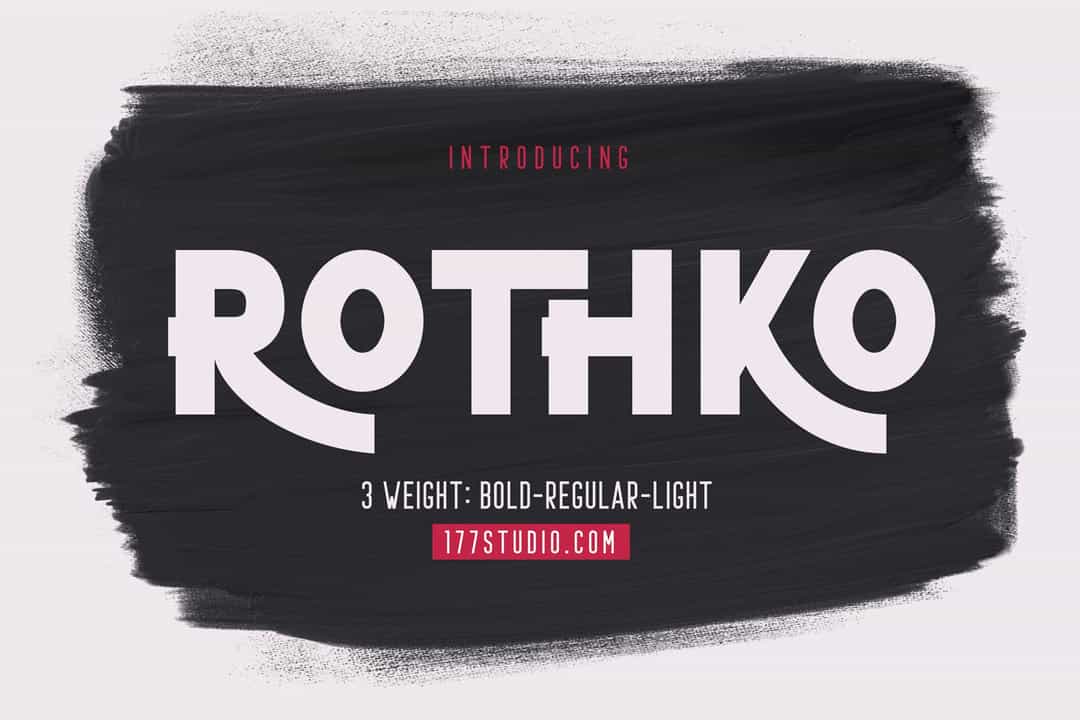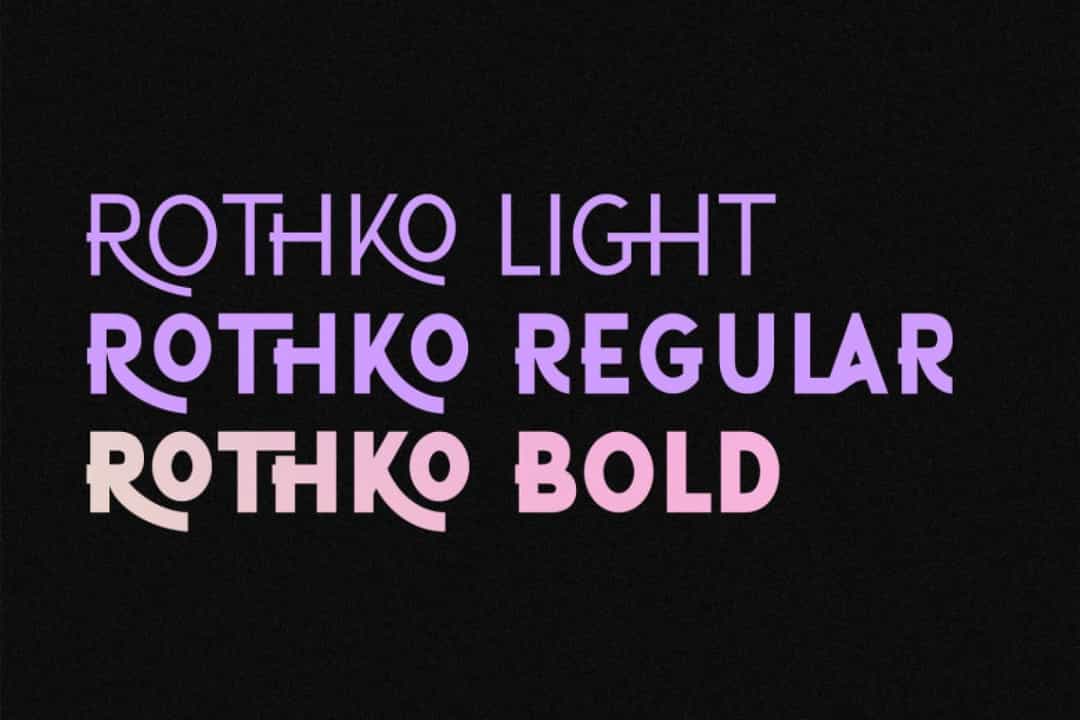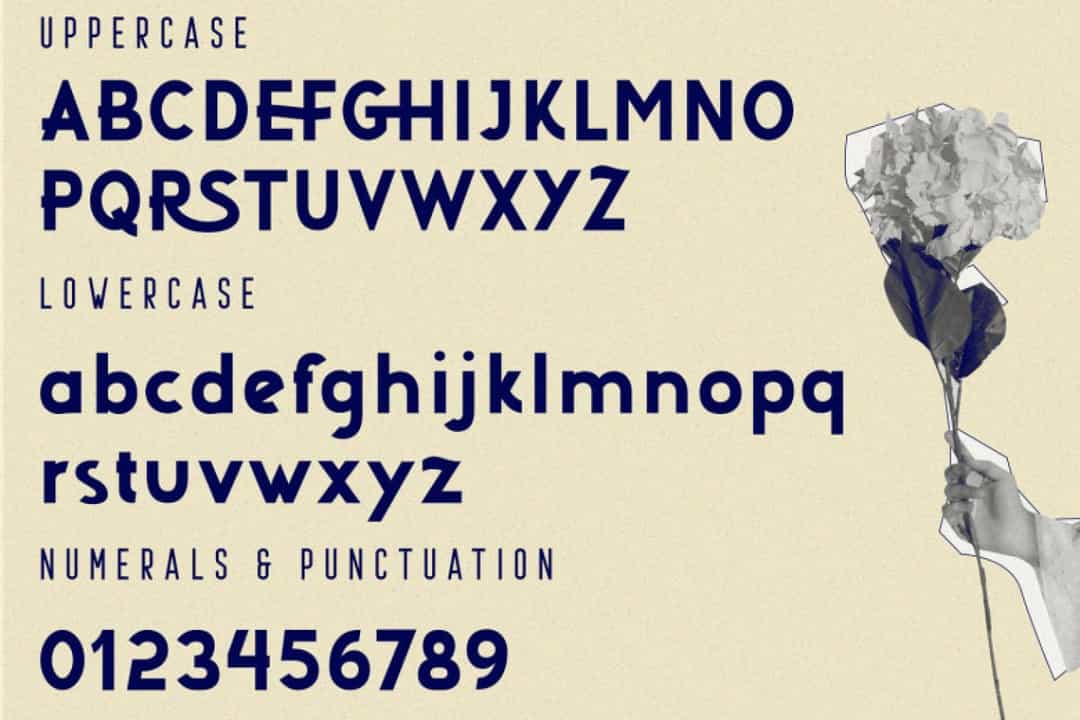
ROTHKO Font is an elegant sans serif font designed to create comfortable reading. Featuring beautiful geometric fonts for writing sentences and titles that is easy to scan when reading aloud, ROTHKO can easily fit into many designs for use throughout any industry.